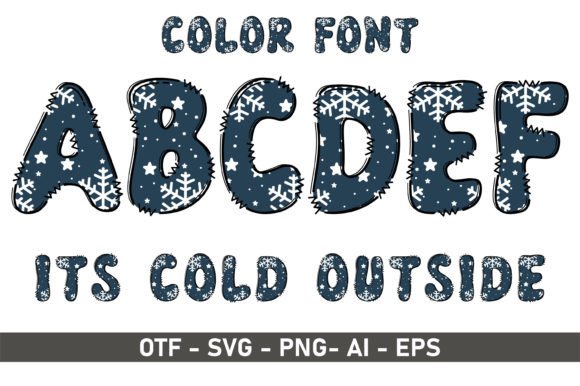
Journey into the realm of artistic expression with Its Cold Outside, the captivating font family that transforms your creative visions into enchanting realities. Immerse yourself in a symphony of colors, where each character dances across the page, leaving a trail of playful elegance.
Experience the joy of crafting delightful designs that resonate with warmth and charm. Picture the smiles on children's faces as they embark on imaginative adventures through the pages of your storybooks, brought to life by Its Cold Outside's whimsical characters.
Envision the vibrancy of your posters, invitations, and greeting cards, where every letter becomes an artistic stroke, capturing attention and igniting conversations. Let your creativity soar and create captivating designs that leave a lasting impression.
With Its Cold Outside, the possibilities are as limitless as your imagination. Make a statement, spread joy, and add a touch of magic to your creative endeavors. Embrace the beauty of color and elevate your designs to new heights.
For Cricut enthusiasts, the black version of Its Cold Outside is your perfect companion. Unleash your artistic potential and bring your crafting dreams to life. Whether it's intricate stencils, personalized home décor, or eye-catching signage, Its Cold Outside empowers you to transform your ideas into tangible masterpieces.
Embark on a creative journey with Its Cold Outside, where colors dance, imaginations ignite, and artistic dreams come true. Discover the boundless possibilities that await you within this extraordinary font family.